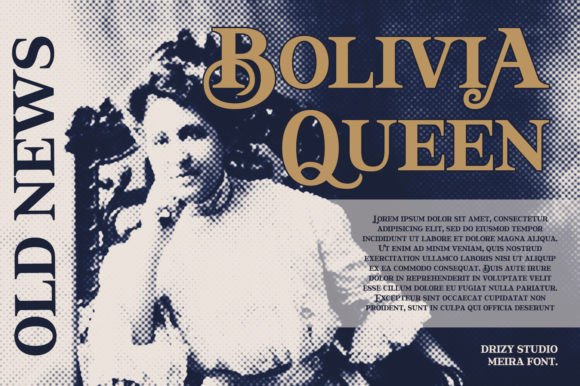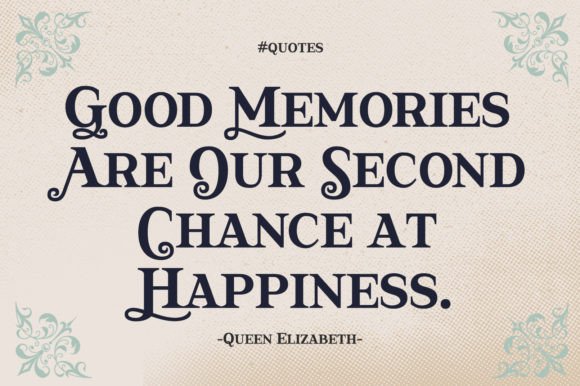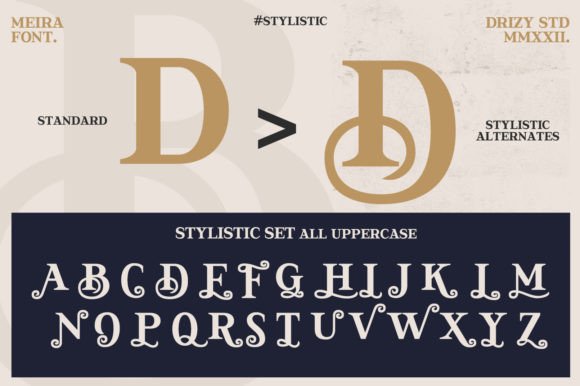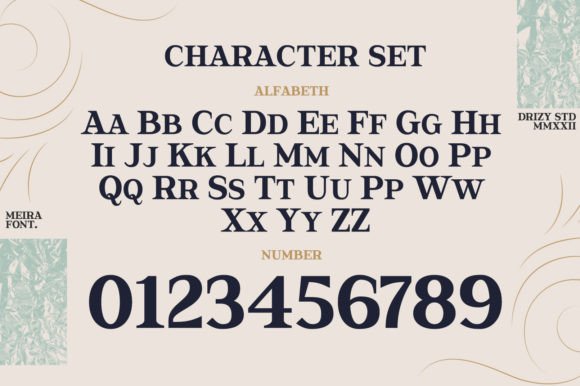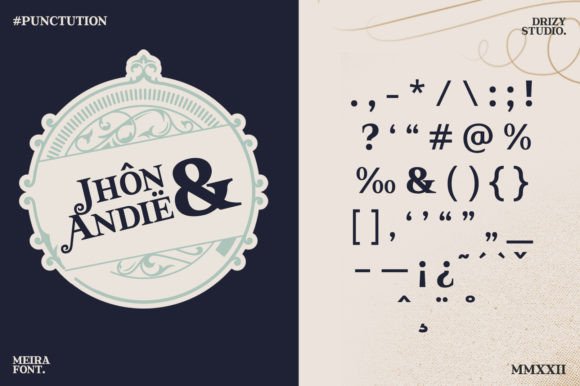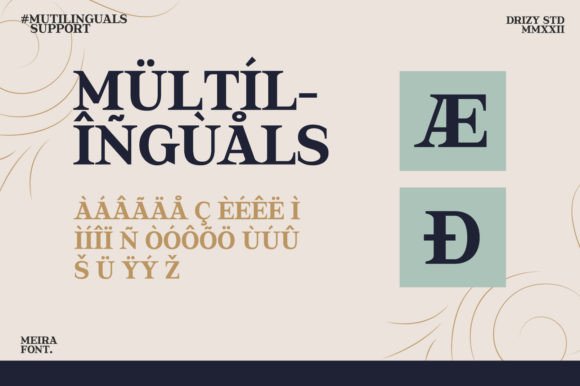
Introduction to Meira Font
Introducing Meira.
A classic serif font suitable for your retro, vintage-themed project .
Key Features of Meira Font
Why Choose Meira Font?
Meira Font offers exceptional quality and versatility, making it a valuable addition to your design toolkit. Whether you’re creating for personal projects or commercial use, Meira Font delivers professional results.